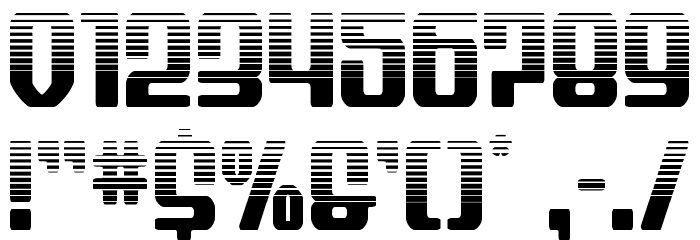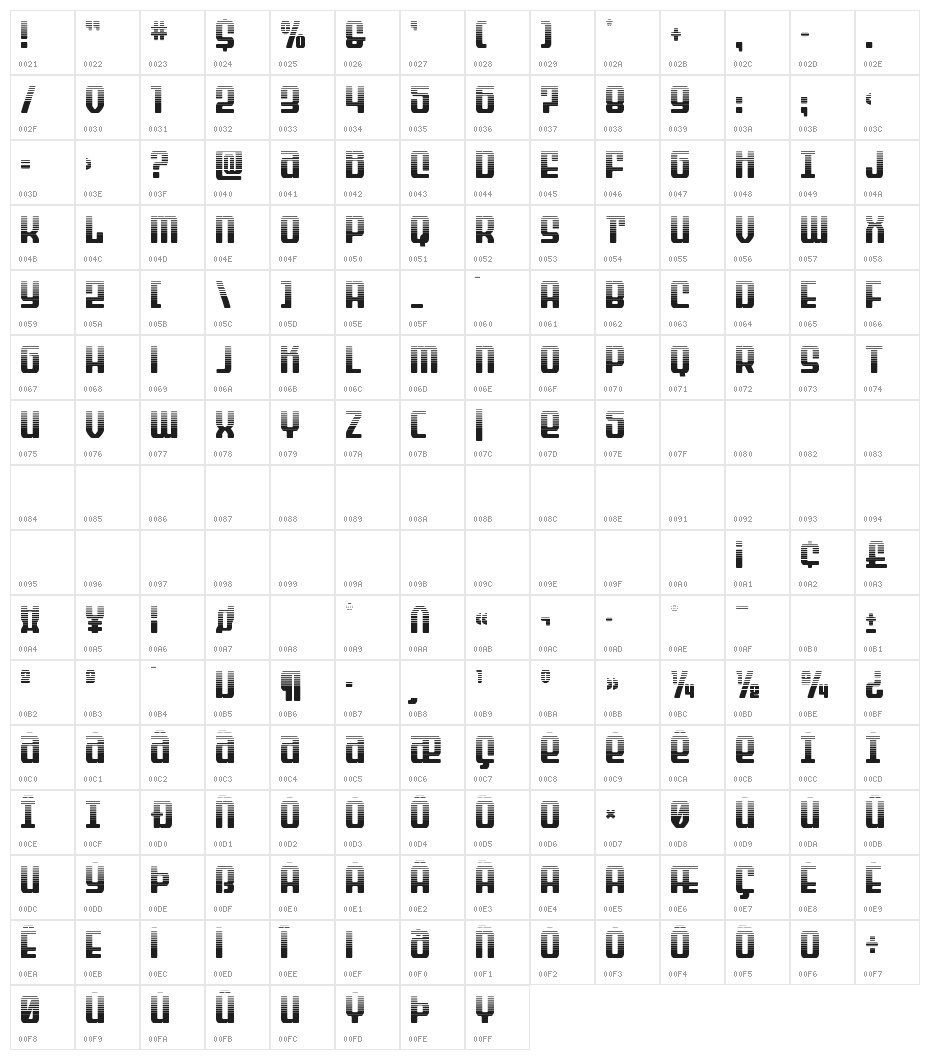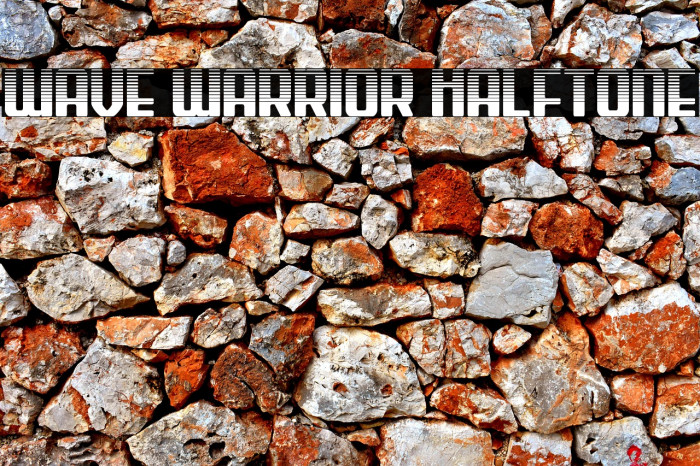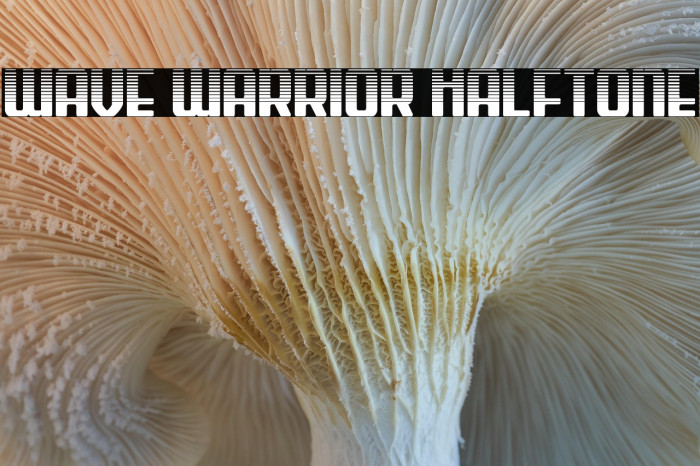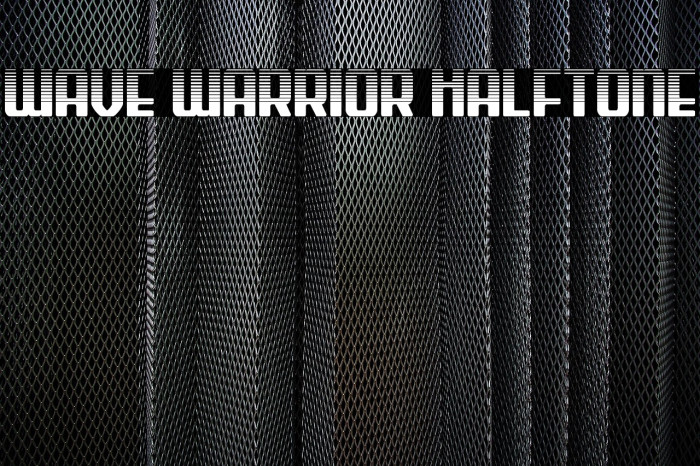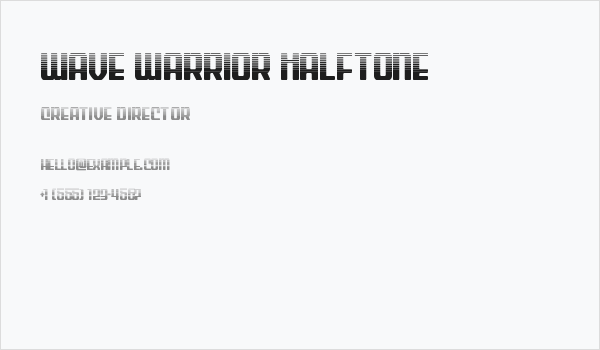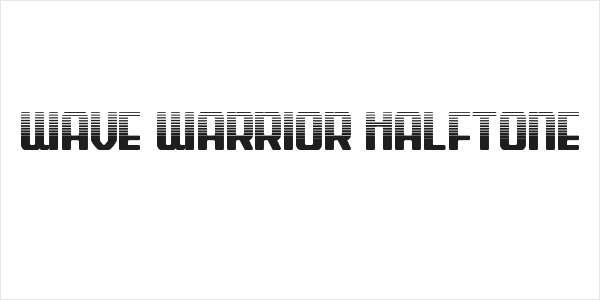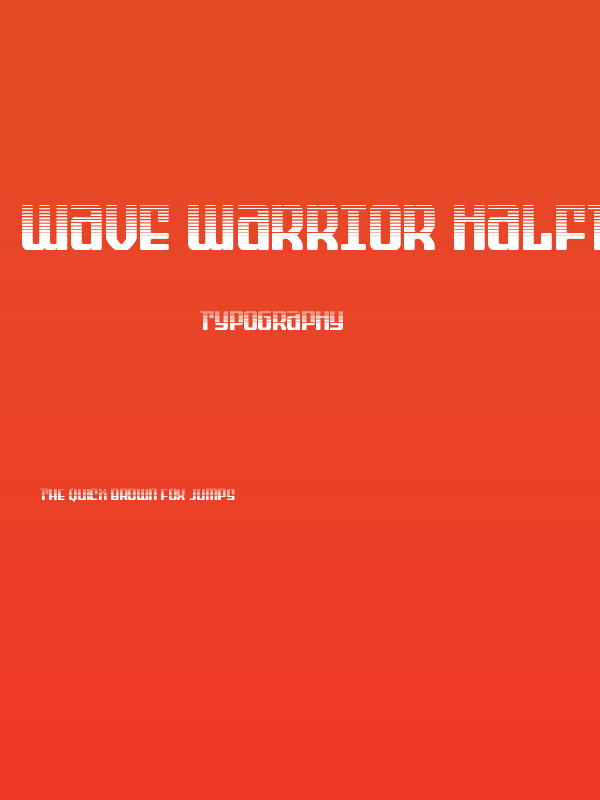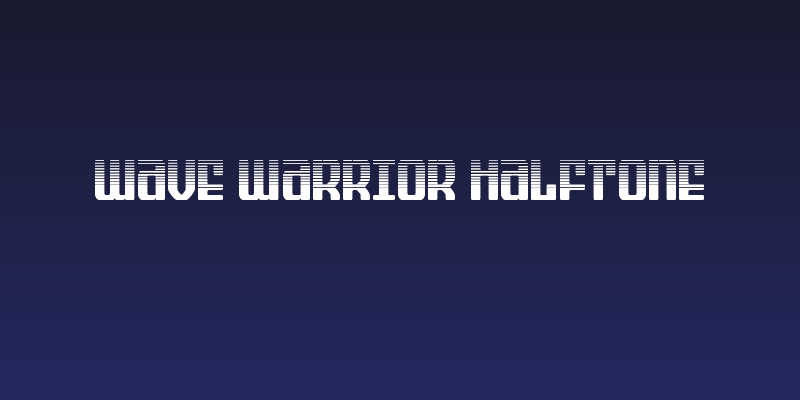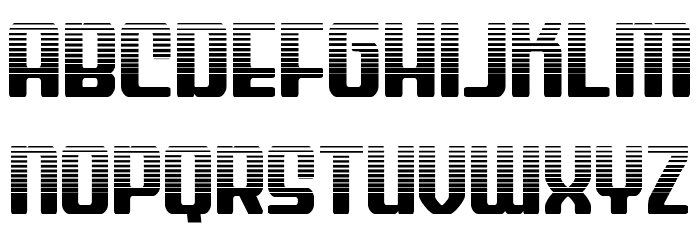
Wave Warrior Halftone Font
Wave Warrior Halftone Description
This font features a bold, futuristic design with a distinctive halftone pattern that creates a sense of movement and depth. The uppercase and lowercase letters are consistent in style, with a blocky, geometric structure that is both modern and eye-catching. The numbers and special characters follow the same design principles, ensuring a cohesive look across all glyphs. The halftone effect is achieved through horizontal lines that gradually fade, adding a dynamic visual element. This font is ideal for projects that require a strong, impactful presence.
| Proposed Projects | Ideal for sci-fi themed designs, video game graphics, posters, and branding that requires a modern, dynamic look. |